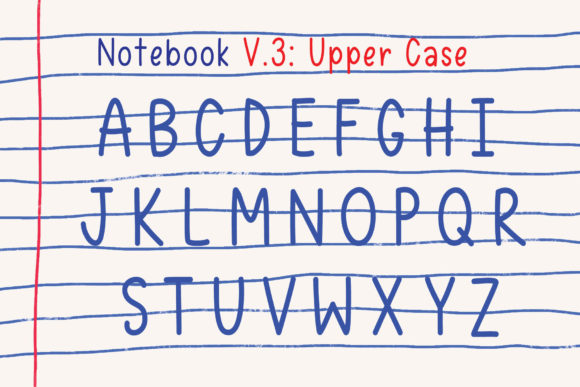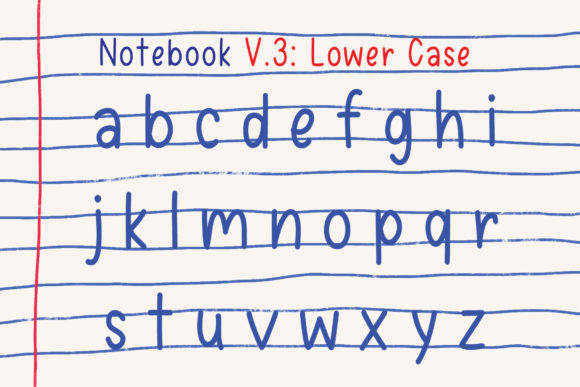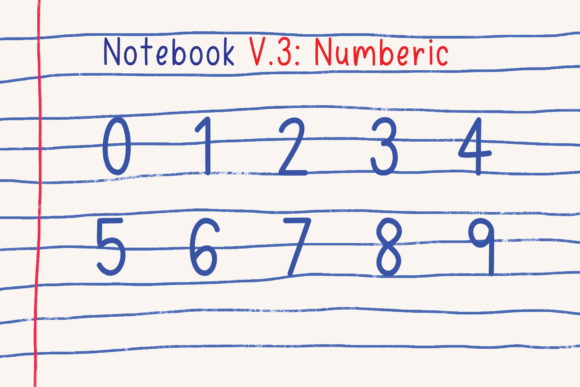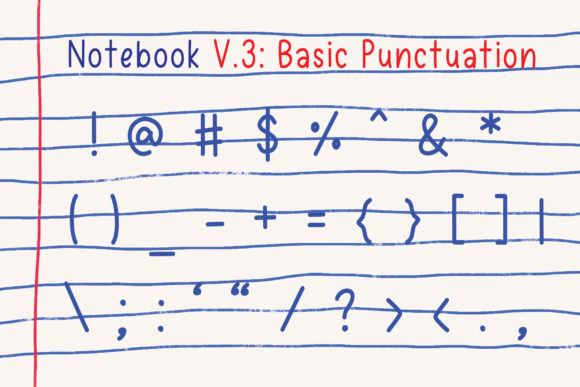
Notebook V.3 Font
About Notebook V.3 Font
Notebook V.3 is a simple handwritten font that can be used for all chalkboard quotes or teaching material! Its authentic look and feel will add a personal and realistic feel to your designs.